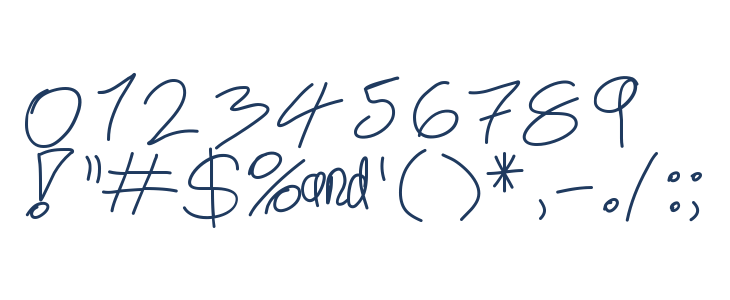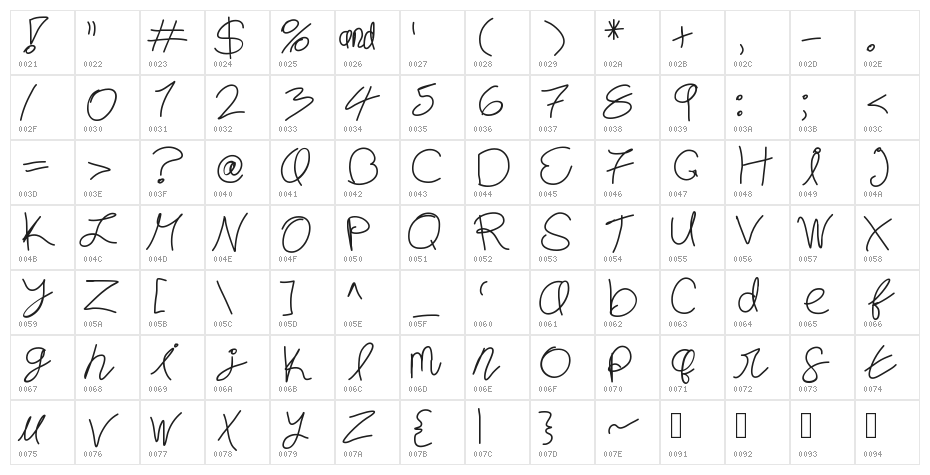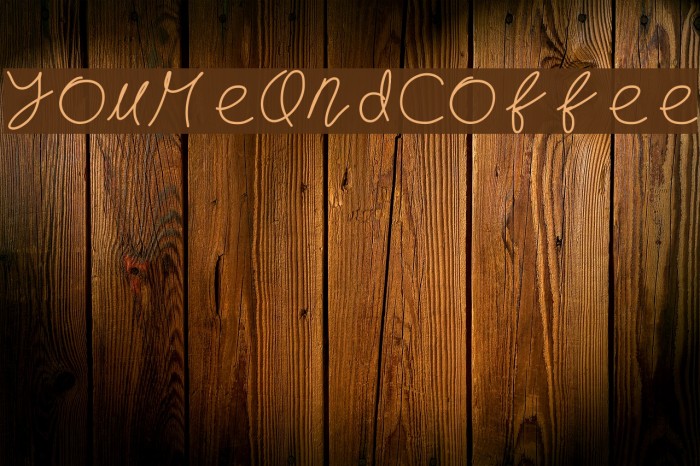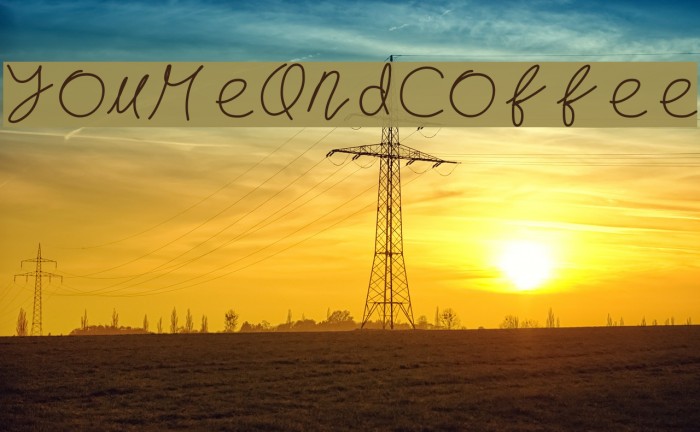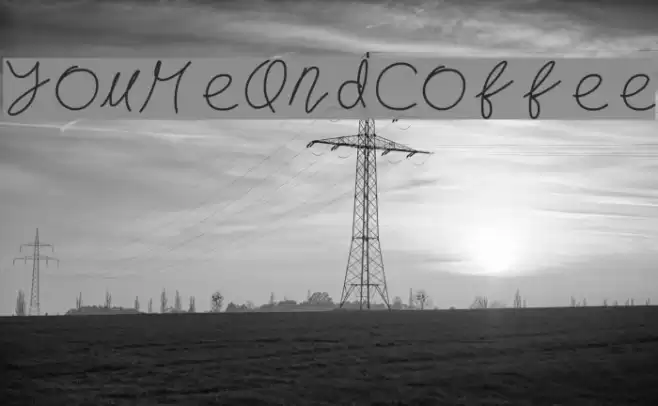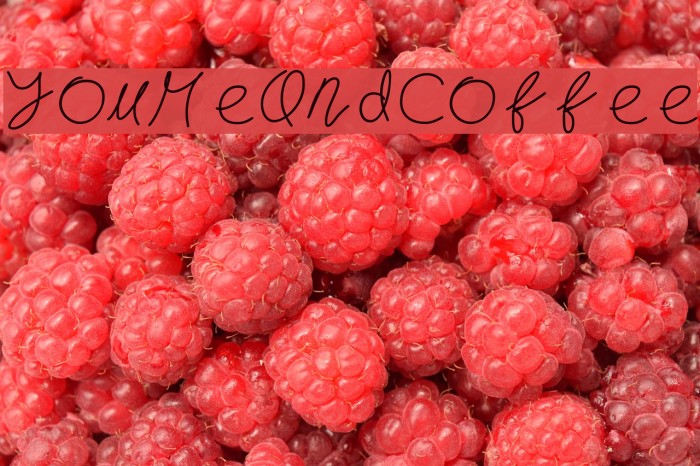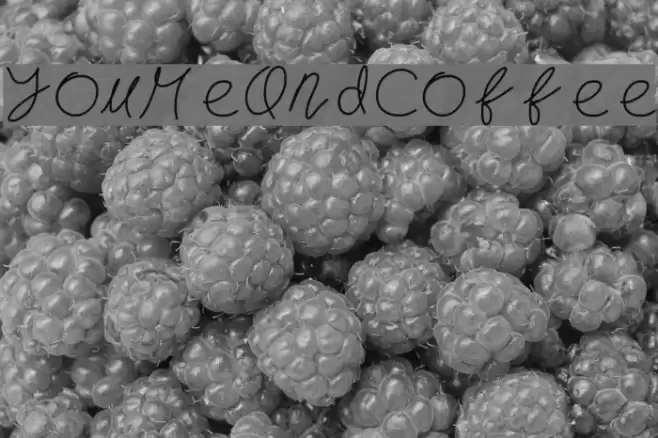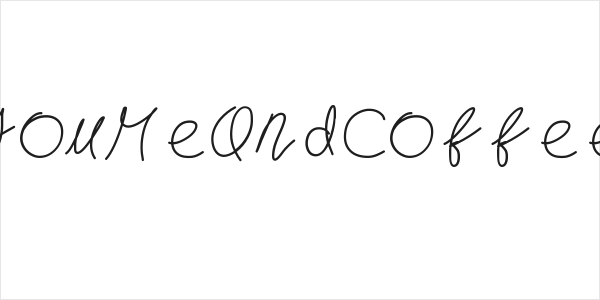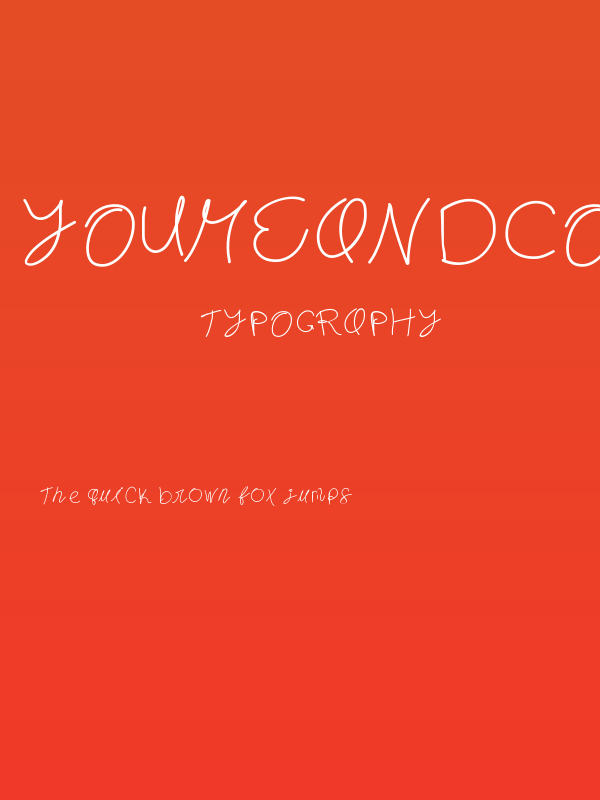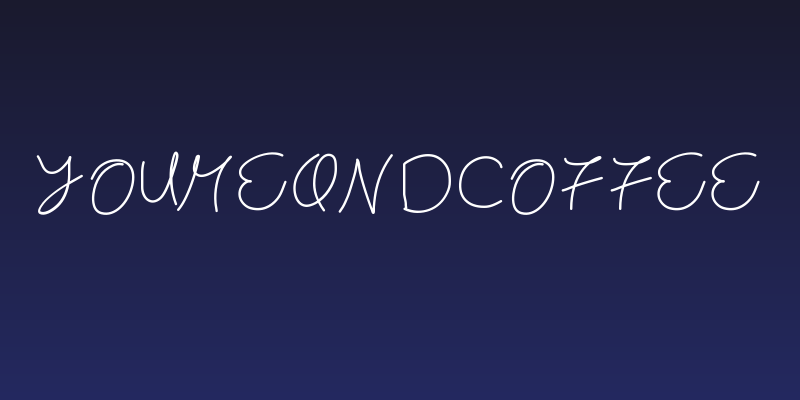
YouMeAndCoffee Font
YouMeAndCoffee Description
This font exhibits a playful and casual handwritten style, characterized by its fluid and connected strokes. The letters are slightly slanted, giving a dynamic and lively appearance. Uppercase and lowercase letters maintain a consistent style, with some letters featuring unique loops and curves that add personality. The numbers and special characters are crafted with the same whimsical touch, ensuring uniformity across the font. The overall look is informal yet stylish, making it suitable for projects that require a personal or creative touch.
Overall StyleCasual, Playful
Use CaseLogos, Invitations, Greeting Cards
Proposed ProjectsIdeal for greeting cards, personal branding, invitations, and creative projects that require a personal touch.